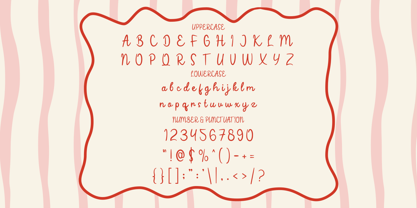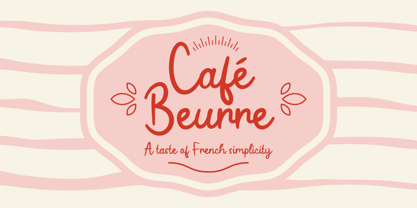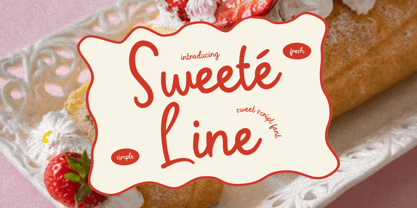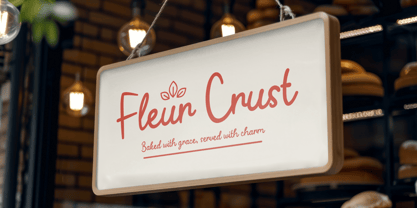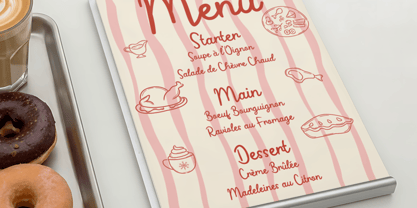
Sweete Line
The Sweete Line Font Family was designed by Yesie Erma Yunita and published by Shanaf. Sweete Line contains 1 styles. More about this family
Sweete Line Script Font brings a soft and delightful touch to any creative project. Its handwritten structure features thin and rounded strokes that create a gentle and feminine look. Each letter runs with natural curves, giving the font a cute and expressive feel. The tall yet balanced letterforms keep the text readable while still appearing playful. Sweete Line Script Font gives a friendly mood with its simple lines and steady rhythm. The overall style fits perfectly with designs that need warmth, charm, and a personal touch. This font works naturally for logo design, branding material, product packaging, and invitation cards. It also fits menu layouts, greeting cards, posters, business signage, and cover designs that aim for a soft and pleasant appeal. Its flowing script style brings a lively character to headlines, quotes, and stylish decorative text. The curves feel sweet and approachable, which makes it great for food brands, feminine businesses, or lifestyle products. Each glyph shows a smooth movement that makes the writing feel fresh and handwritten. This font is perfect for craft projects and fun creative work where personality matters. Sweete Line Script Font is designed to support clean readability while keeping a cute and friendly expression. The structure is ideal for digital and print needs, including stickers, magazine covers, film titles, and boutique branding. With this font, any design can feel sweeter, softer, and more inviting without losing clarity or consistency.